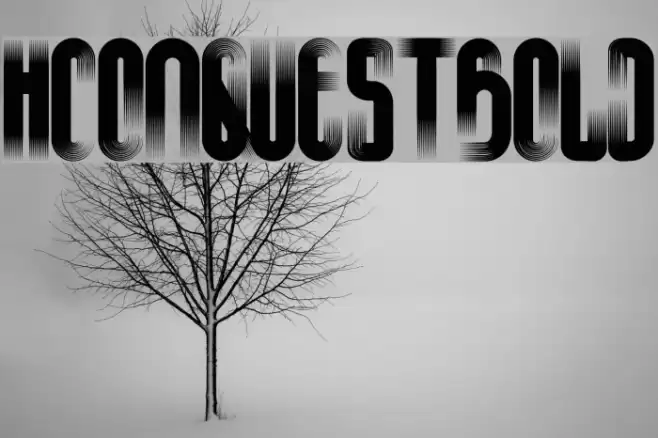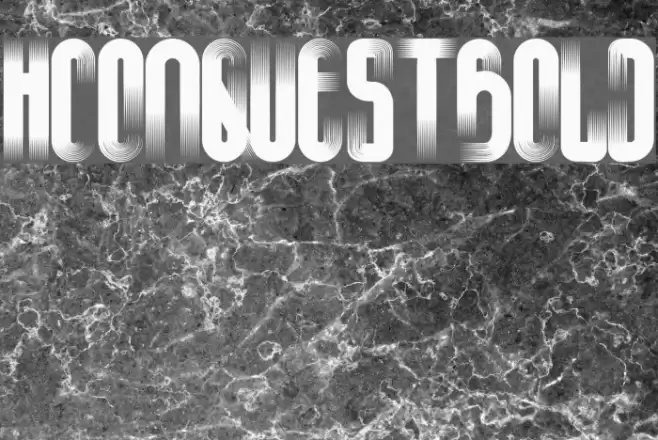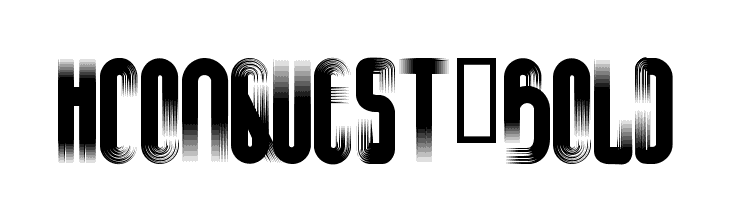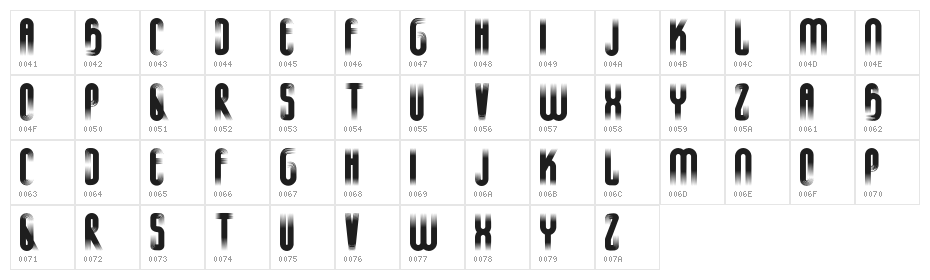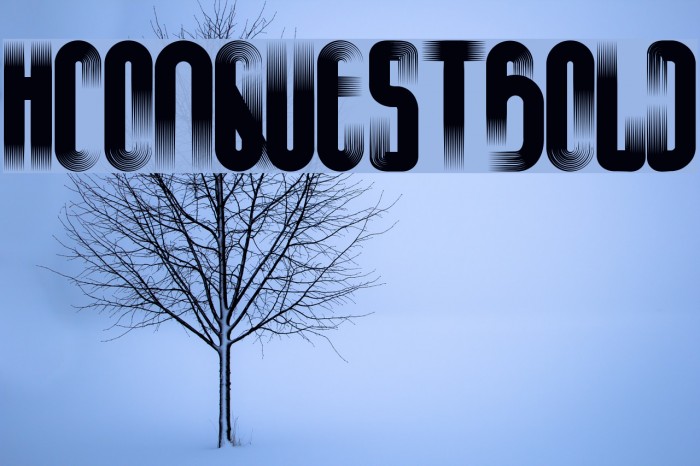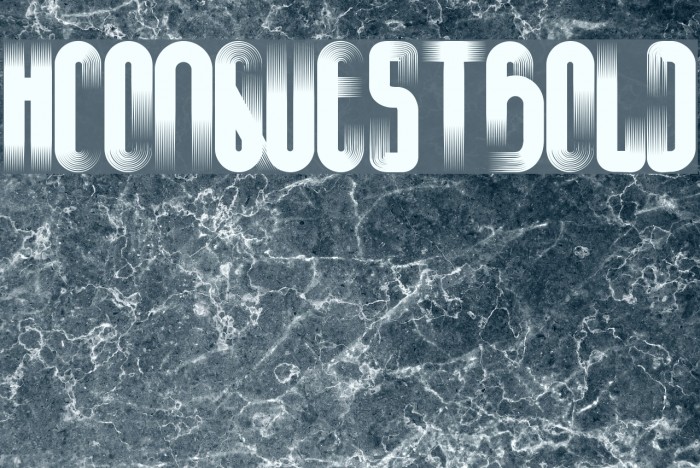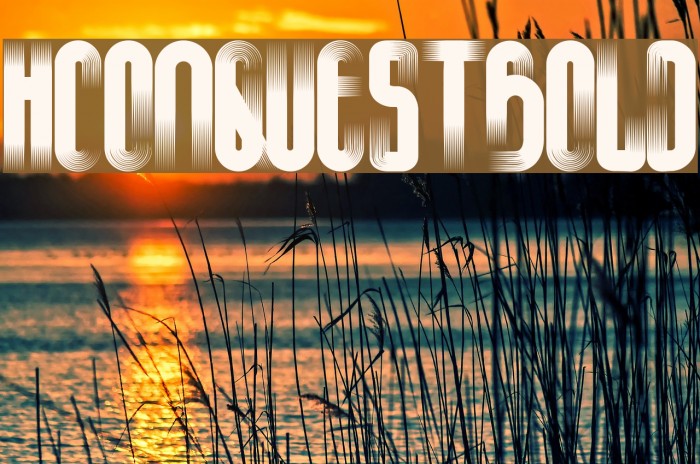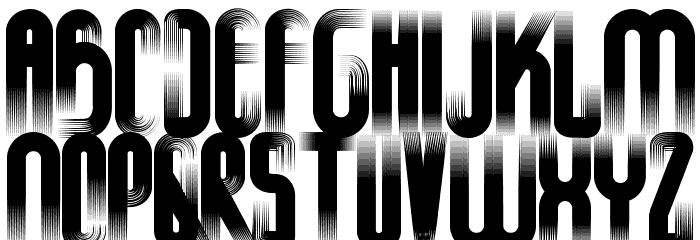
HConquest-Bold Font
HConquest-Bold Description
This font features a bold and striking design with a unique gradient effect that creates a sense of depth and movement. The characters are tall and narrow, with a modern and futuristic appearance. The gradient effect is achieved through a series of horizontal lines that transition from solid black to white, giving each letter a dynamic and eye-catching look. This font is perfect for projects that require a bold statement and a modern aesthetic. Its distinctive style makes it ideal for use in headlines, posters, and branding materials where a strong visual impact is desired.
A bold, modern font with a unique gradient effect and a futuristic style from Uncategorized fonts.
- Proposed Projects: Ideal for headlines, posters, branding, and any project needing a bold, modern look.
- Use Case: Headlines, Posters, Branding